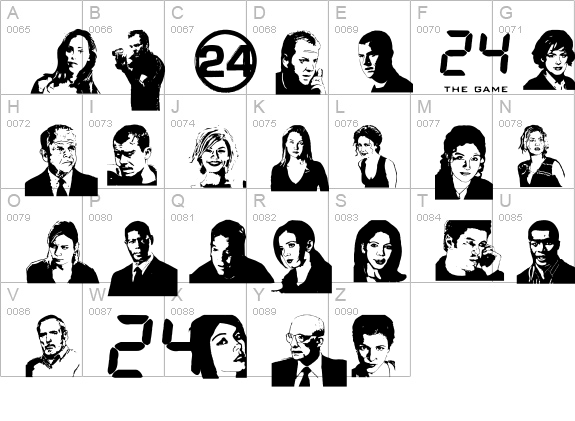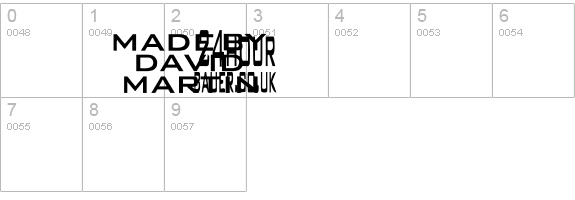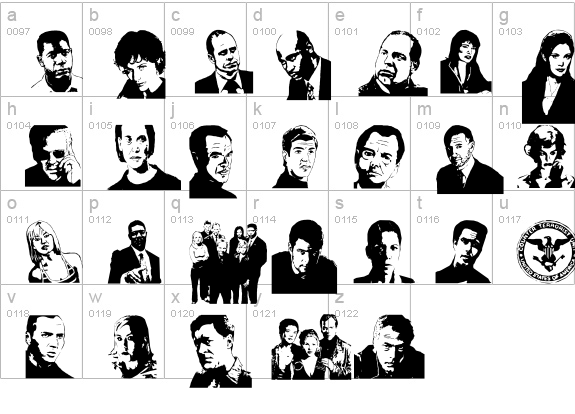
24hourbauer Font Details
Introducing 24hourbauer font, a modern and stylish typeface that is perfect for a wide range of design projects. This versatile font features sleek lines and a contemporary aesthetic that will make your designs stand out. Whether you're working on branding, advertising, or web design, 24hourbauer font is sure to make a statement. The best part? 24hourbauer font is completely free to download at FontsMarket.com. This means you can add this professional font to your collection without breaking the bank. Don't miss out on the opportunity to enhance your designs with the sleek and stylish 24hourbauer font. Download it today and take your projects to the next level.